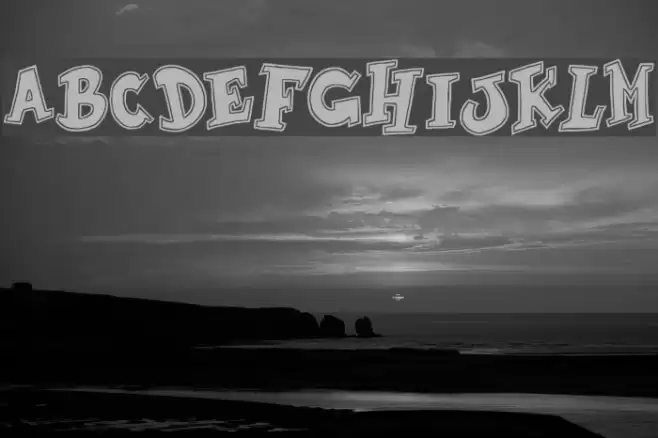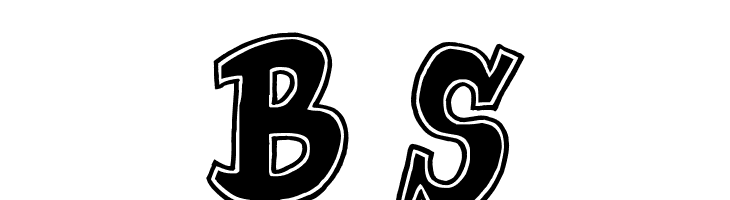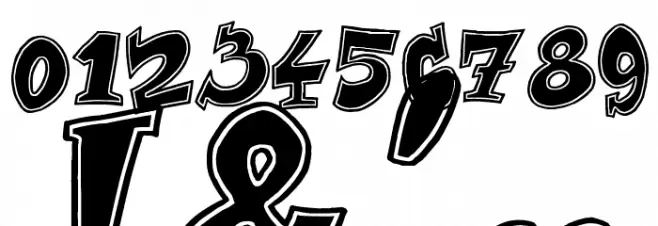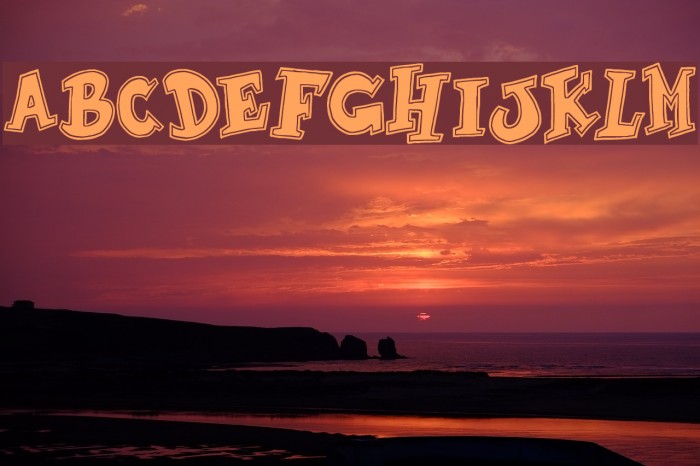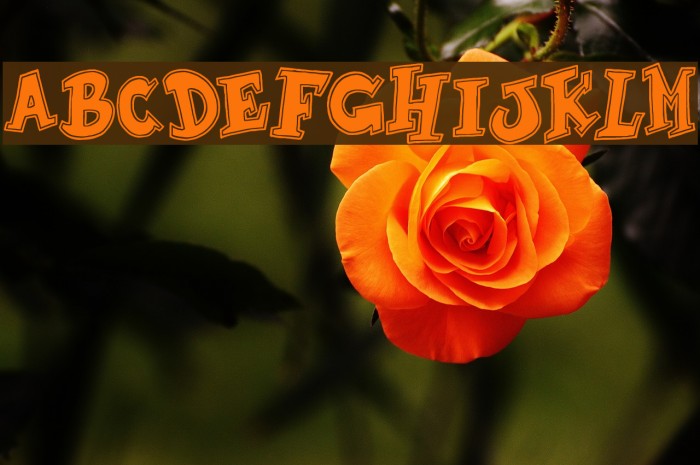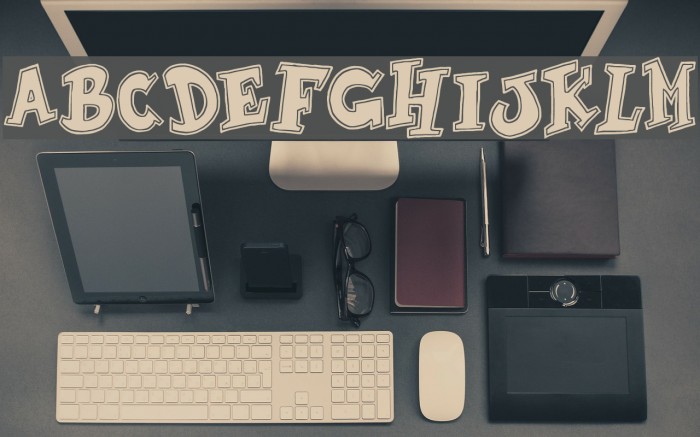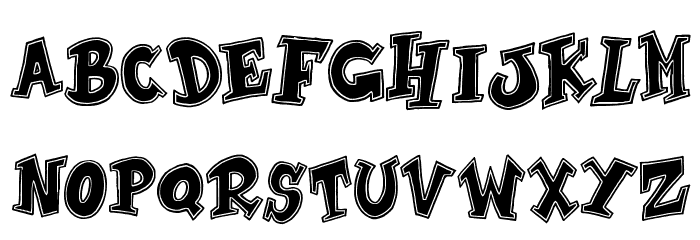
Brown Shoes Font
Brown Shoes Description
This font features a bold, playful design with a cartoonish flair. Each character is outlined with a thick black stroke, giving it a three-dimensional appearance. The letters are slightly irregular, adding to the whimsical and informal style. The uppercase and lowercase letters maintain a consistent style, with rounded edges and exaggerated curves. Numbers and special characters follow the same playful theme, making the font suitable for eye-catching designs. The overall look is dynamic and energetic, perfect for projects that require a fun and engaging typeface.
A bold, playful font with a cartoonish, three-dimensional style from Uncategorized fonts.
- Proposed Projects: Ideal for children's books, comic strips, playful branding, posters, and party invitations.
- Overall Style: Playful, Cartoonish, Energetic